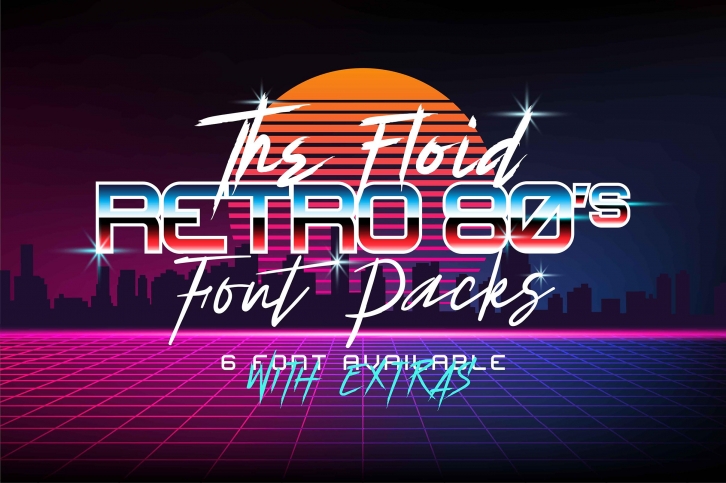
The Floid Packs is a trendy and unique font with an authentic style. It was designed by Bdstrd Std and it's a great choice for creative people who need such a font. It was released on April 8, 2018 and the file size is 21.92 MB. The Floid Packs will add an organic vibe to any design idea!